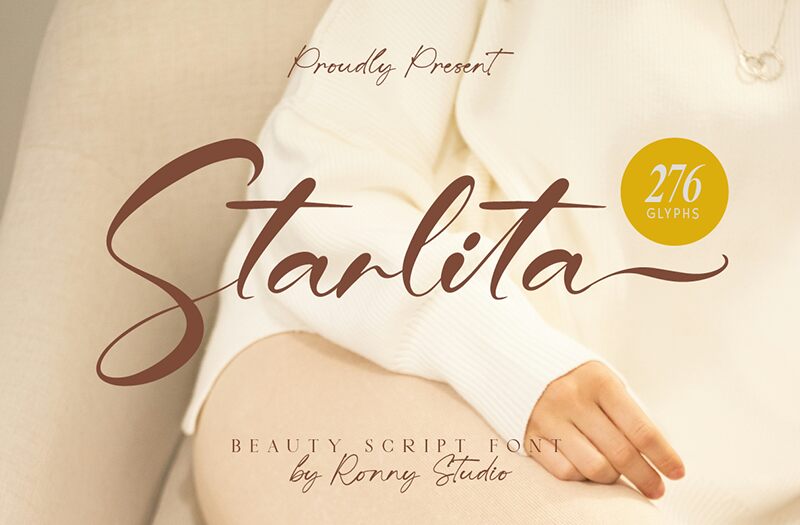
Starlita DEMO
Starlita font by Ronny Studio is a modern calligraphy font with a sophisticated style. The graceful script features stylish flair and flowing movement that makes it both elegant and enticing. Its overall design mimics the continuous slant of cursive handwriting, yet appears polished and professional in its approach, visually perfect-edged.
Free for download, Starlita might work beautifully in banners, invites, apparel designs, greeting cards, product packaging as well as labels. Stationery elements such as business cards will benefit from the smooth visual balance this typeface generates when used.